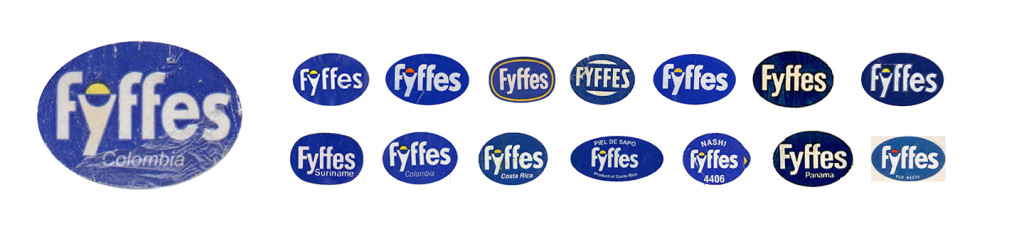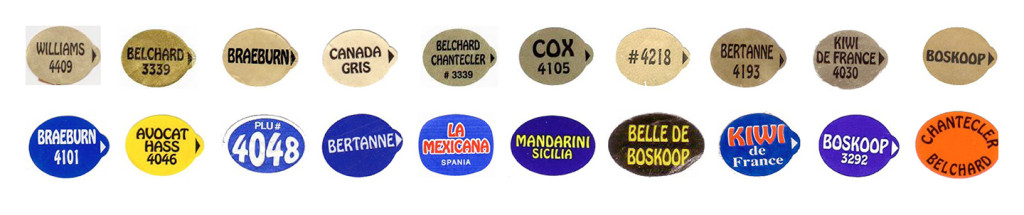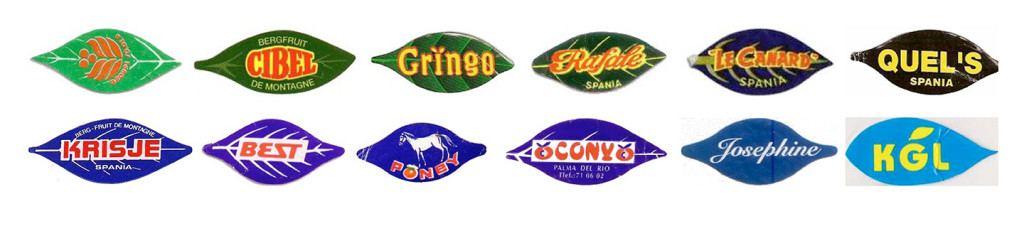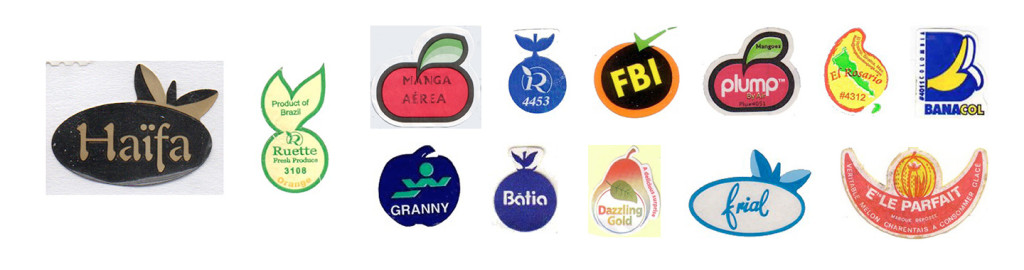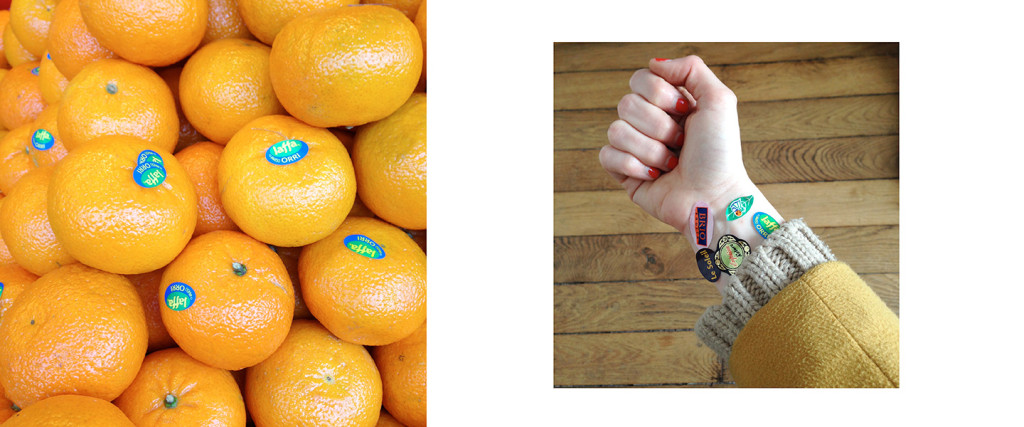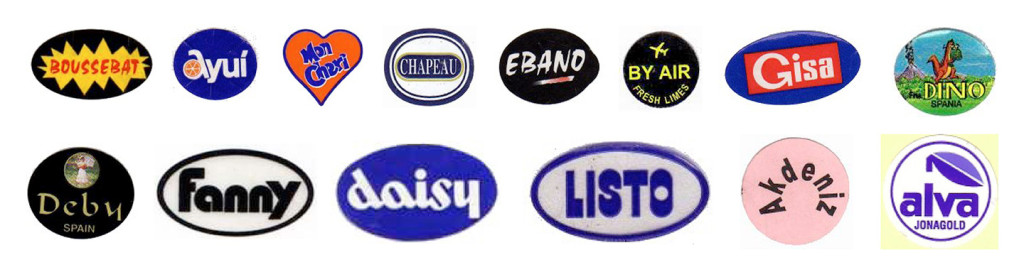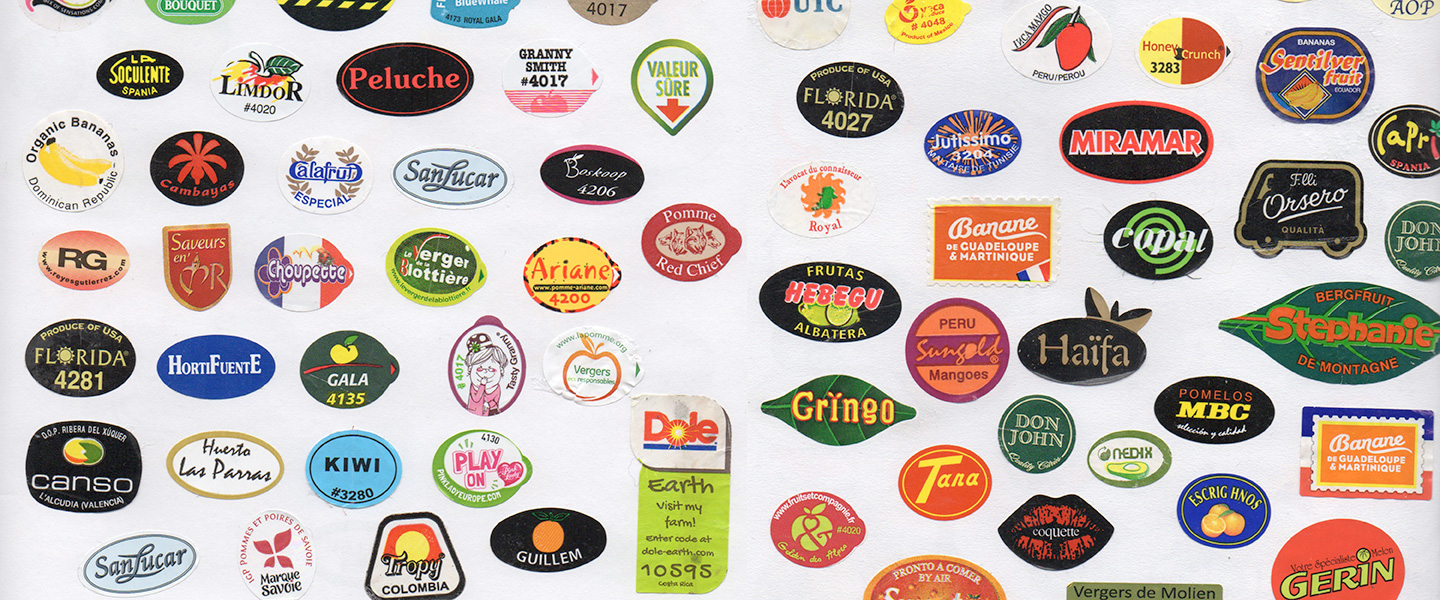
« Every designer should collect things » said Véronique Vienne, in a talk she gave in Amiens (France) back in 2013, when I was still studying typeface design there. This had quite an impact on me. At that time, I had already started collecting the tiny (and annoying) stickers you find on fruits and vegetables. Suddenly I didn’t feel like a weirdo anymore.
I don’t remember exactly why I started keeping them, and I still don’t know what attracts me most about the tiny sticky pieces: seeing them on the fruits or stocking them in my notebook, all together.
Collecting fruit stickers has a name. I couldn’t find an English translation, but in French, it’s called « Légufrulabélophile ». Definitely not a word you see every day.
The first sticker on a piece of fruit appeared in 1929, on a banana. This first label was called « The Fyffes Blue Label », and its goal was to distinguish Fyffes’ bananas from other bananas available in grocery stores. (Fyffes is the world’s oldest fruit company, founded in 1888). As you can see, only subtle changes have been done on the stickers since 1929.
On most stickers there is a 4 or 5-digit number. This code is called a PLU code (price look up price code). Basically, it is an identification system for fruits and vegetables which has been used since the ’90s in the USA. It also allows us to know how the fruit has been produced. A 4-digit code identifies a «conventionally grown produce», a 5-digit code, organic produce. The code is an international standard, and they are the same everywhere in the world. Amazing, right?
Not really relevant here, but this is how the labels are stuck on the fruits (I personally have always wondered how this was done)
The first image above is from my collection, which is tiny compared to some of the ones I found online. Some people have collected over 30 000 stickers. Now that’s a lot of fruit!
Anyway, let me show you some of my personal favorites*:
Hobo is mostly used for fruits stickers. Fruit name set in hobo, printed in on gold background. Because Hobo doesn’t need much more than that.
There are a bunch of stickers based on the same leaf model. Funny how these designs are almost the same among the different brands here.
I particularly like these fruit shaped cutouts. Interesting to find the exact same shapes for different logos.
What I like best is when the color of the sticker matches the piece of fruit it’s stuck on.
On the right is what I look like, most of the times I go to the supermarket.
Brush and script typefaces are also widely used.
Finally, here are some random ones I found and that I think are interesting to look at.
Fun fact: according to Jean-François Porchez, José Mendoza also used to collect orange stickers. Are there any other type folks out there who collect them, too?